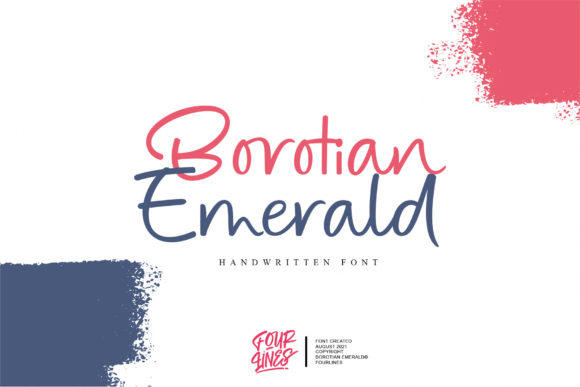
Borotian Emerald Font
Borotian Emerald is a delicate, elegant and flowing handwritten font. It has beautiful and well balanced characters and as a result, it matches a wide pool of designs. Borotian Emerald is PUA encoded which means you can access all of the glyphs and swashes with ease!